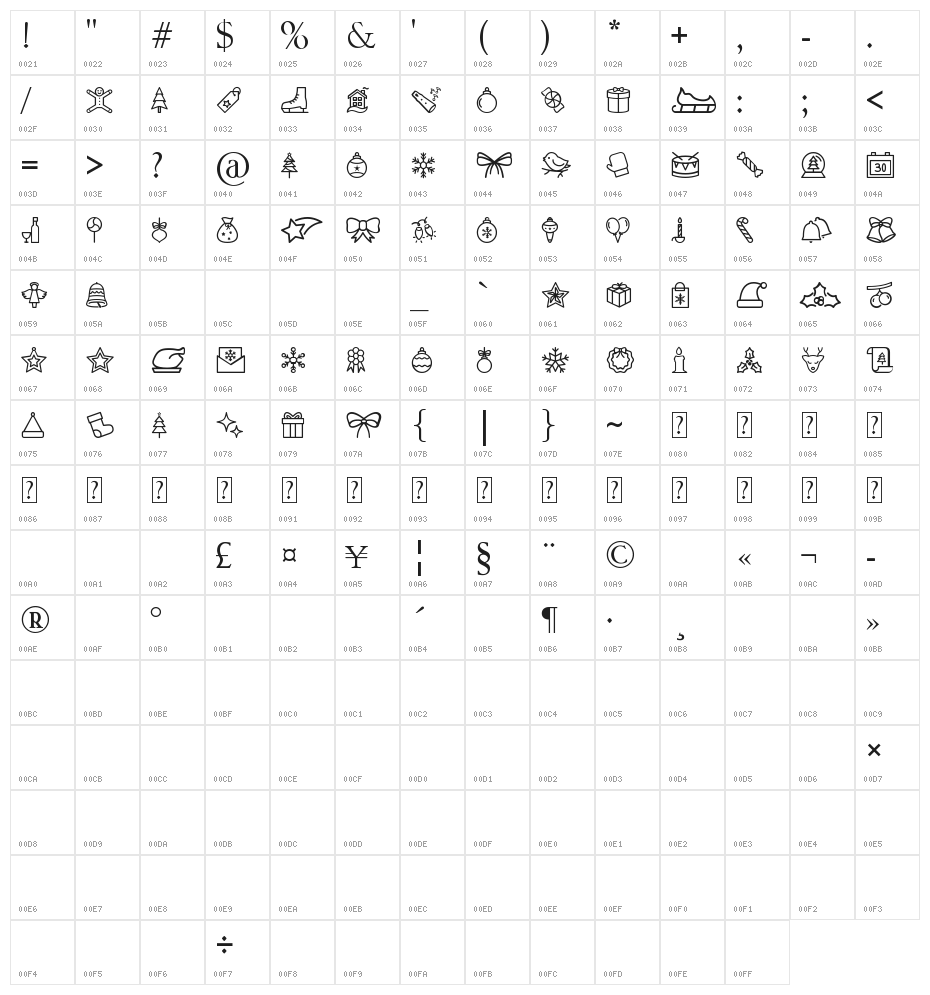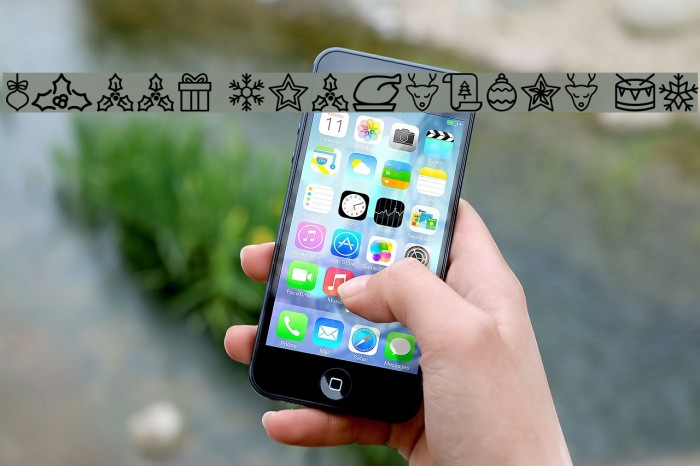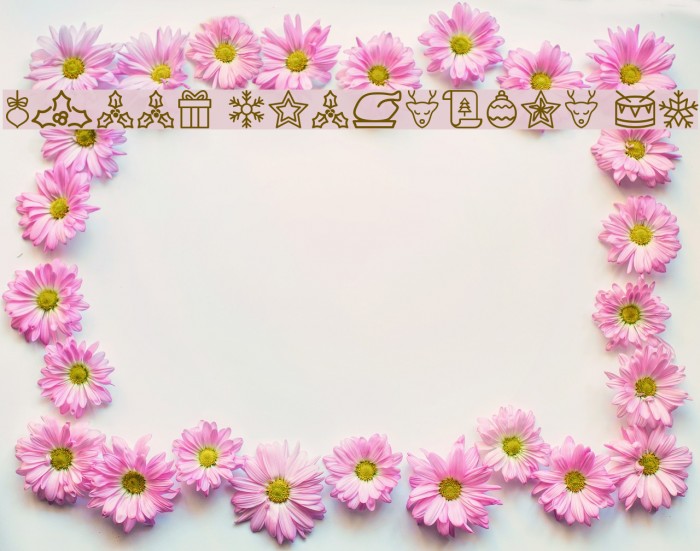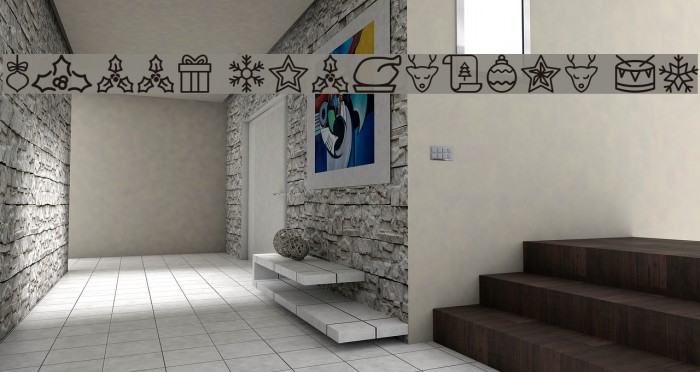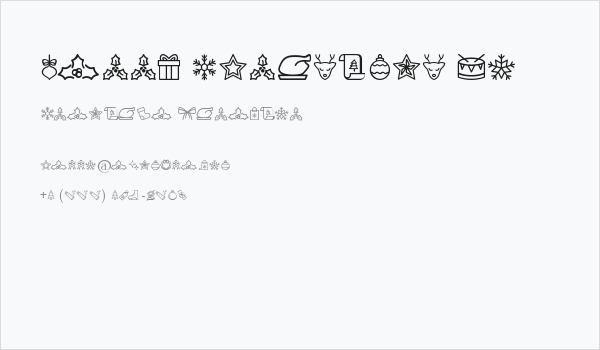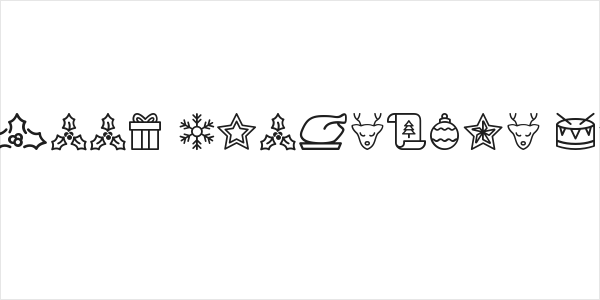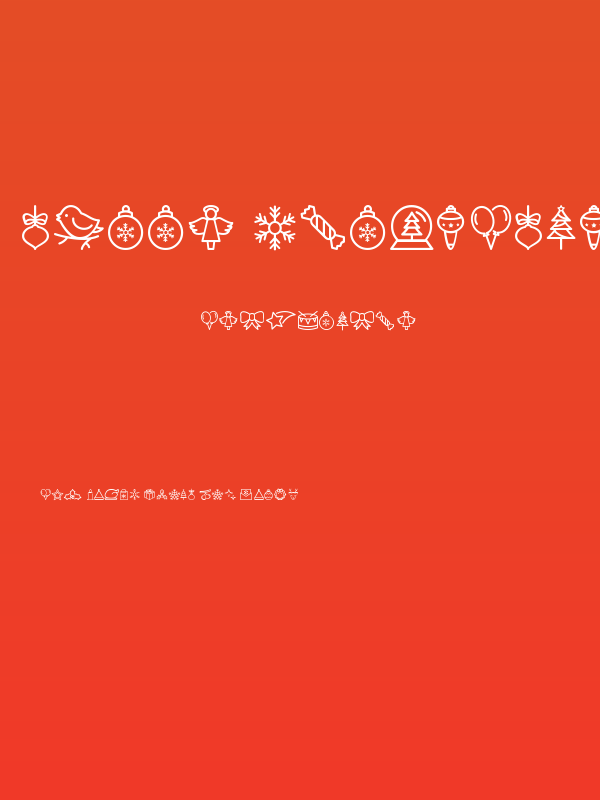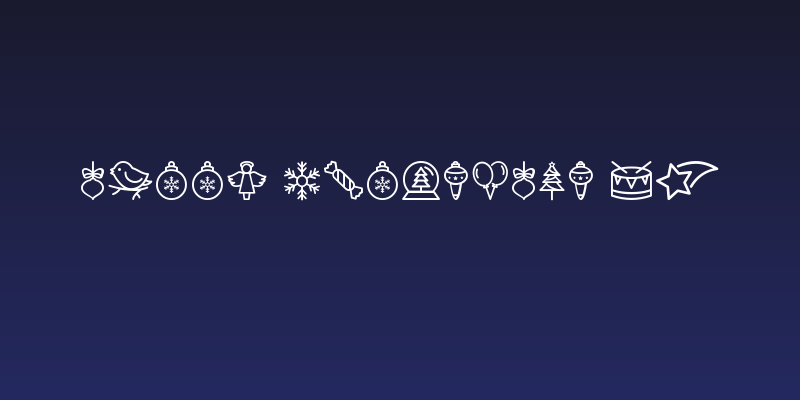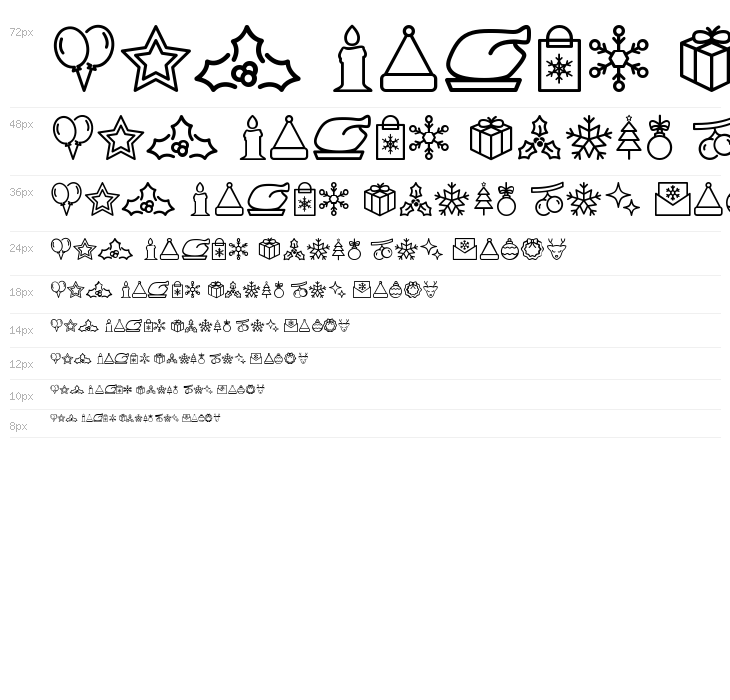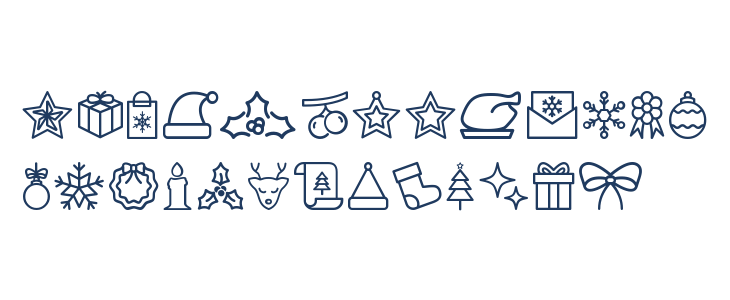
Merry Christmas Go Font
Merry Christmas Go Description
This is a festive and decorative icon set featuring a variety of Christmas-themed symbols. Each icon is designed with clean, bold lines and a minimalist style, making them easily recognizable and versatile for various design projects. The set includes traditional holiday elements such as Christmas trees, snowflakes, bells, gifts, and more, each rendered in a consistent line art style. The icons are perfect for adding a touch of holiday spirit to any project, whether it's a greeting card, a festive website, or seasonal marketing materials.
| Use Case | Logos, Decorative elements |
| Proposed Projects | Ideal for holiday greeting cards, festive websites, seasonal marketing materials, and Christmas-themed decorations. |